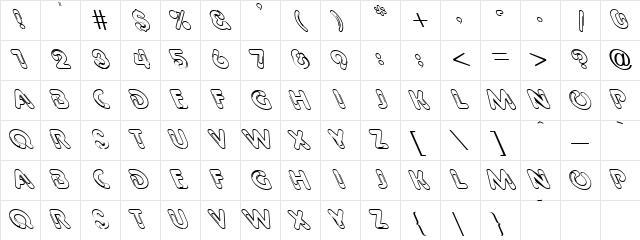
Snow-blind 6 Regular
Design Context for Snow-blind 6
Snow-blind 6 is a composed and adaptable typeface that performs quietly and consistently across a wide range of design contexts.
Pro Tip: Use Snow-blind 6 in both headline and body roles to test its range before committing to a single application.